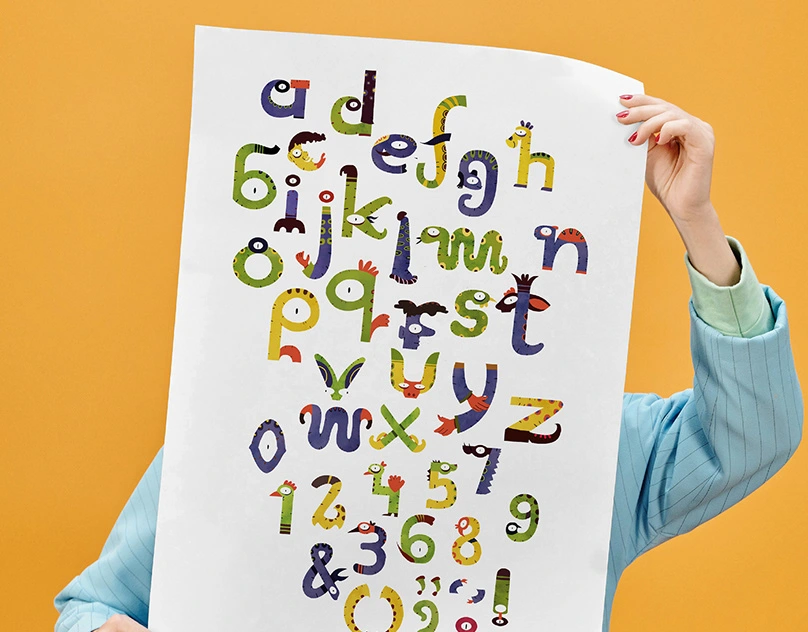
GOOPI (DISPLAY FONT) (1) | Images
Sohail Shaikh
Exploring the style, color scheme, characters, animation style and the movie-making process behind "Goopi Gawaiya Bagha Bajaiya" was a fascinating journey. Thi…